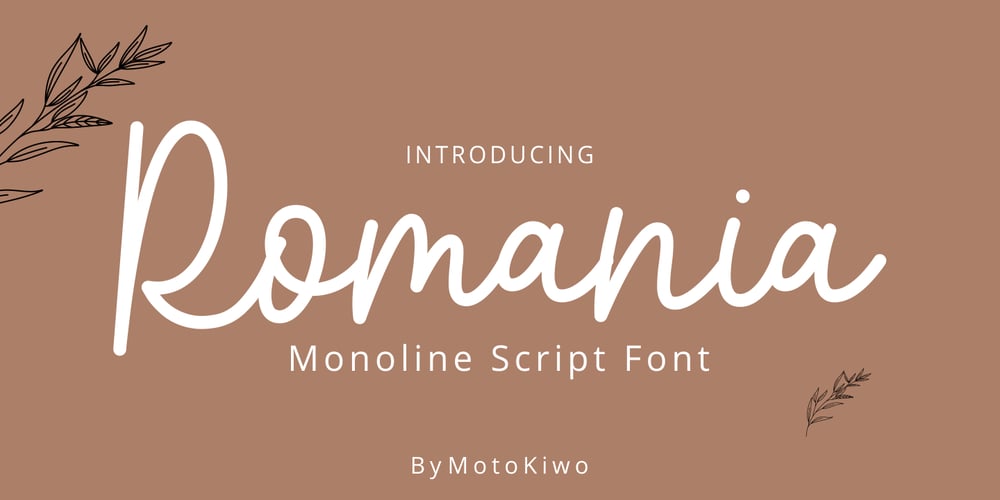
Romania Font Family was designed by Anton Cahyono and published by Motokiwo. Romania contains 1 styles and family package options. This casual script designed to handle modern and minimalist projects. Say hello to Romania, a monoline script font with feminine organic character style that very suitable for a chic logo brand, cosmetic projects, wedding, quotes, and many more.FEATURES: Uppercase & lowercase Numeral & Punctuation Multilingual Support Easy to use in any software and OS